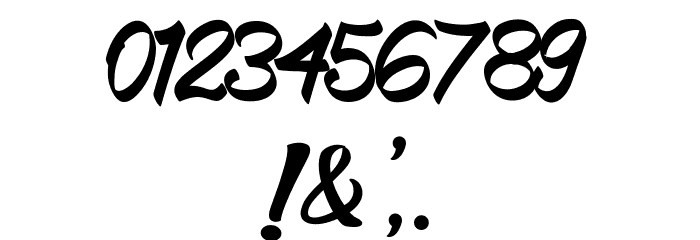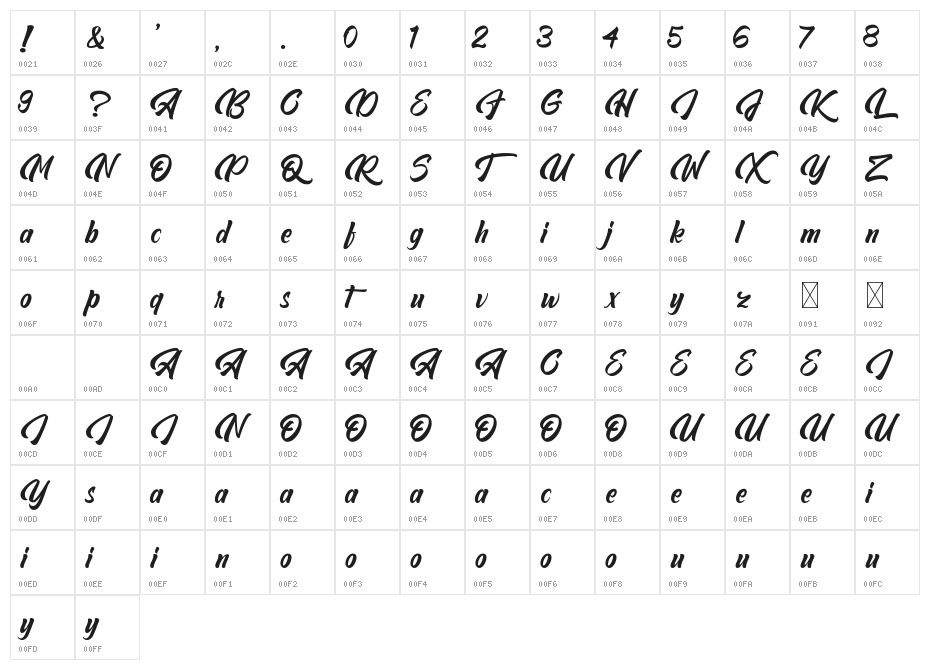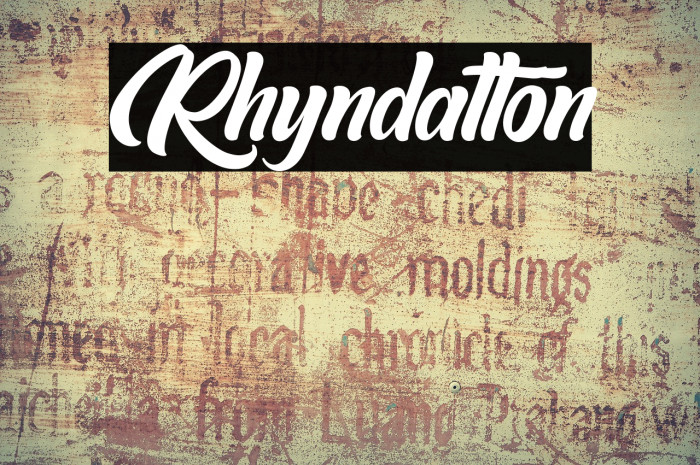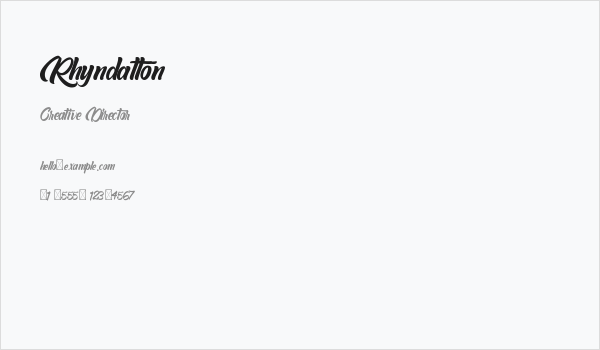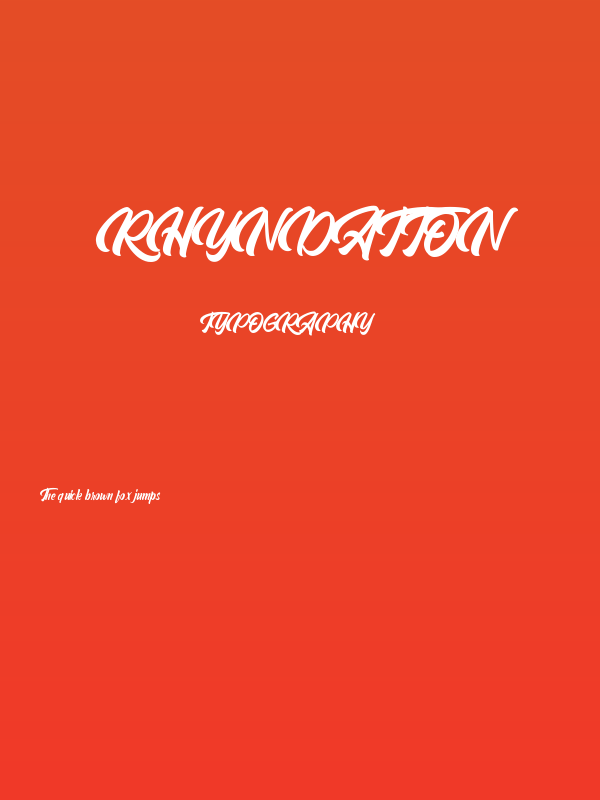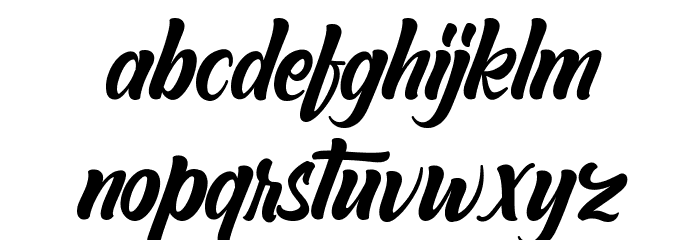
Rhyndatton Font
Rhyndatton Description
This font features a bold and dynamic script style with a flowing, cursive design. The characters are interconnected, creating a sense of movement and elegance. The uppercase letters are particularly ornate, with sweeping curves and flourishes that add a decorative touch. The lowercase letters maintain a consistent style, with smooth transitions and rounded edges. Numbers and special characters are designed to match the overall aesthetic, ensuring a cohesive look across all elements. The font's boldness and fluidity make it stand out, while its legibility remains intact, making it suitable for various creative applications.